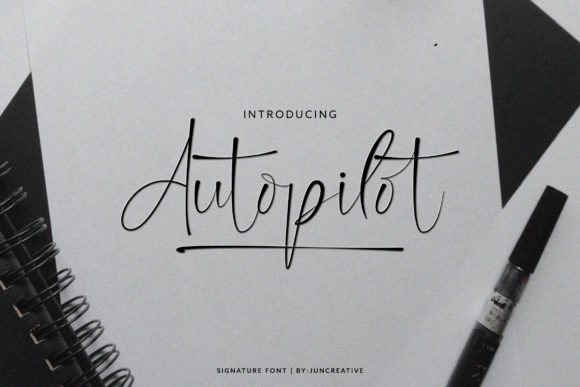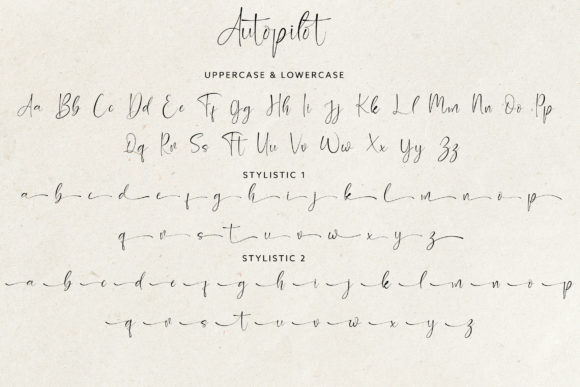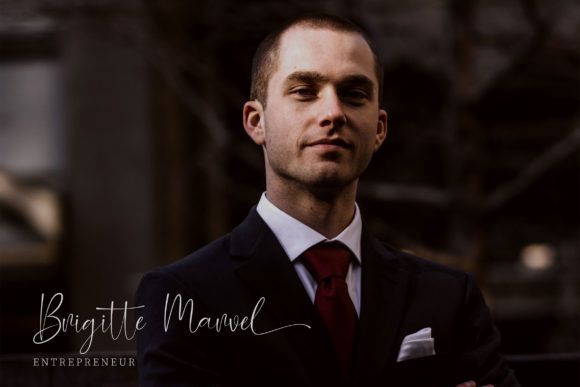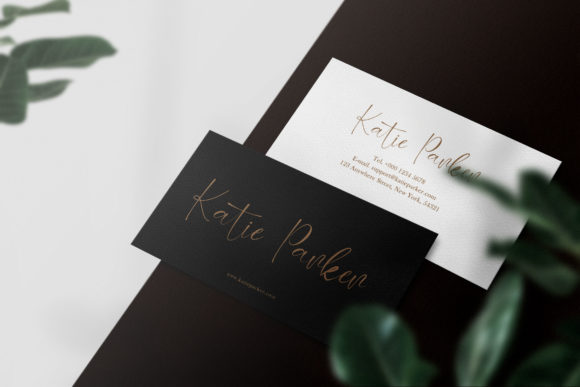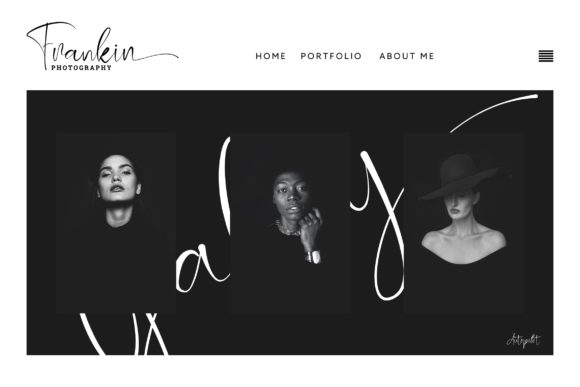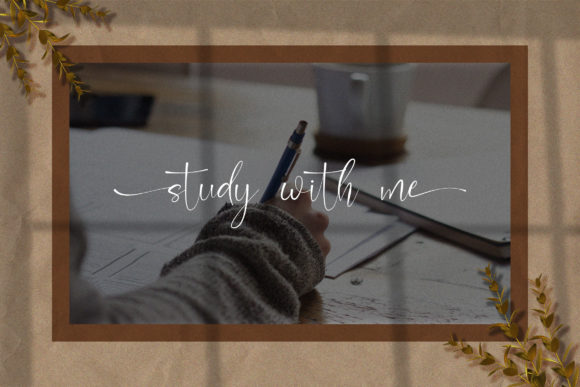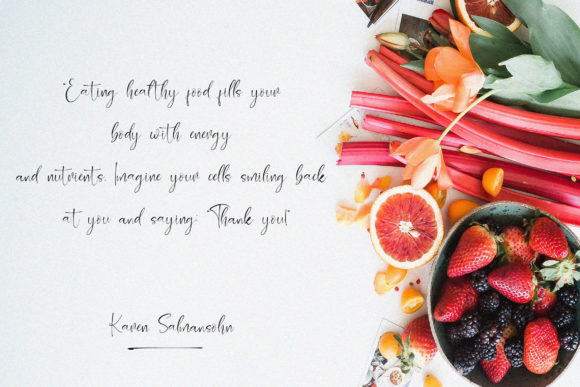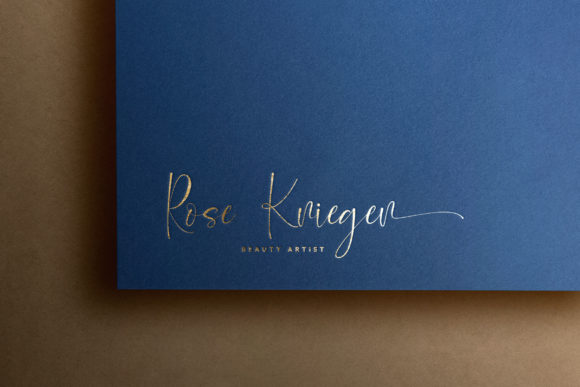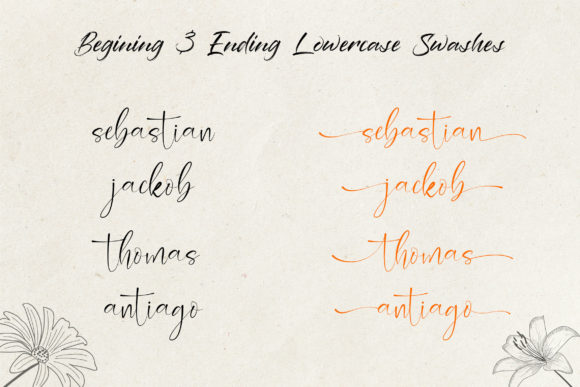
Autopilot Font
About Autopilot Font
Autopilot is an elegant and flowing handwritten font. It is PUA encoded which means you can access all of the glyphs and swashes with ease! It maintains its classy calligraphic influences while feeling contemporary and fresh. Fall in love with this font and bring your projects to the highest levels!